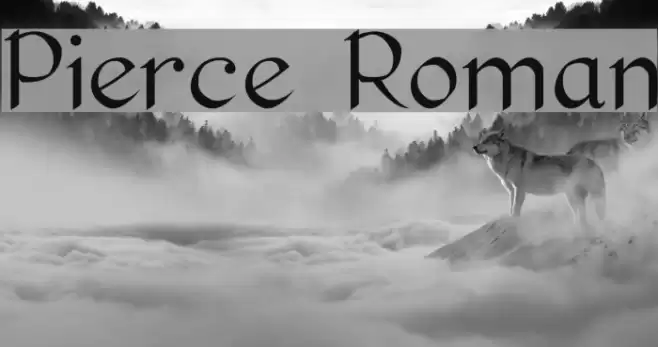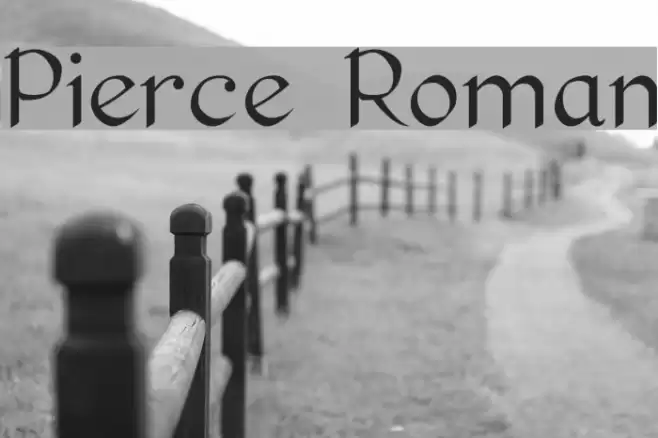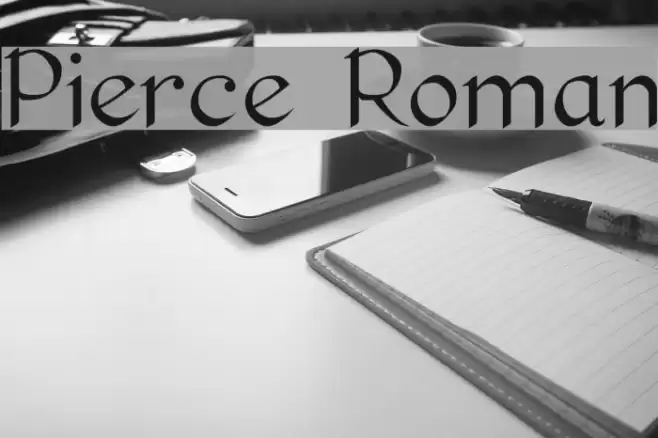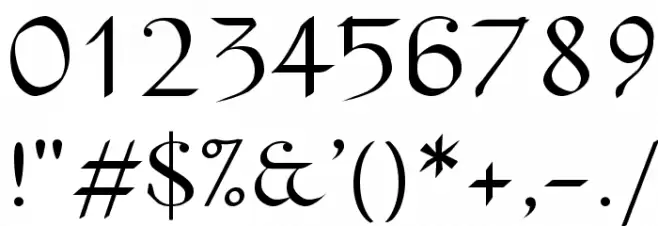
Pierce Roman Font
Pierce Roman Description
This font exhibits a classic and elegant style with a touch of modern flair. The uppercase letters are characterized by sharp, angular serifs and a slightly condensed form, giving them a sophisticated appearance. The lowercase letters maintain a consistent style with smooth curves and a balanced weight, ensuring readability. The numerals are distinct, featuring unique curves and angles that align with the overall aesthetic. Special characters are well-integrated, maintaining the font's cohesive look. The font's design is suitable for projects that require a blend of tradition and modernity, making it versatile for various applications.
A classic serif font with modern angular details and balanced curves from Uncategorized fonts.
- Overall Style: Classic